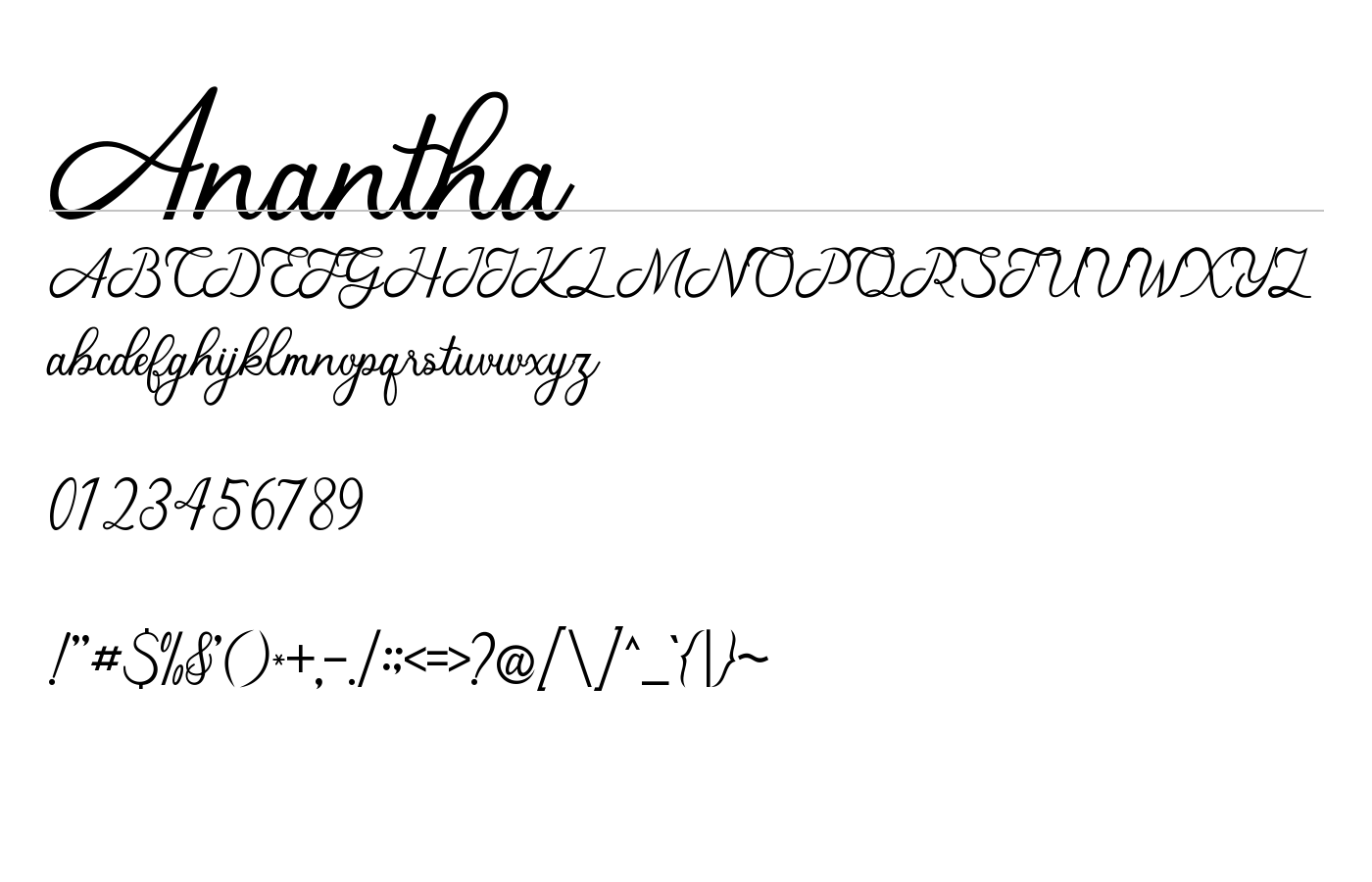
Anantha is a delicate and elegant script font with a refined, handwritten style that features smooth, flowing strokes and a slender weight. Its graceful letterforms and moderate contrast make it ideal for invitations, branding, and editorial projects that seek a sophisticated yet approachable feel. This font shines in contexts where a personal, stylish touch is desired, such as luxury packaging or feminine design themes.
Anantha Font
About Anantha Font